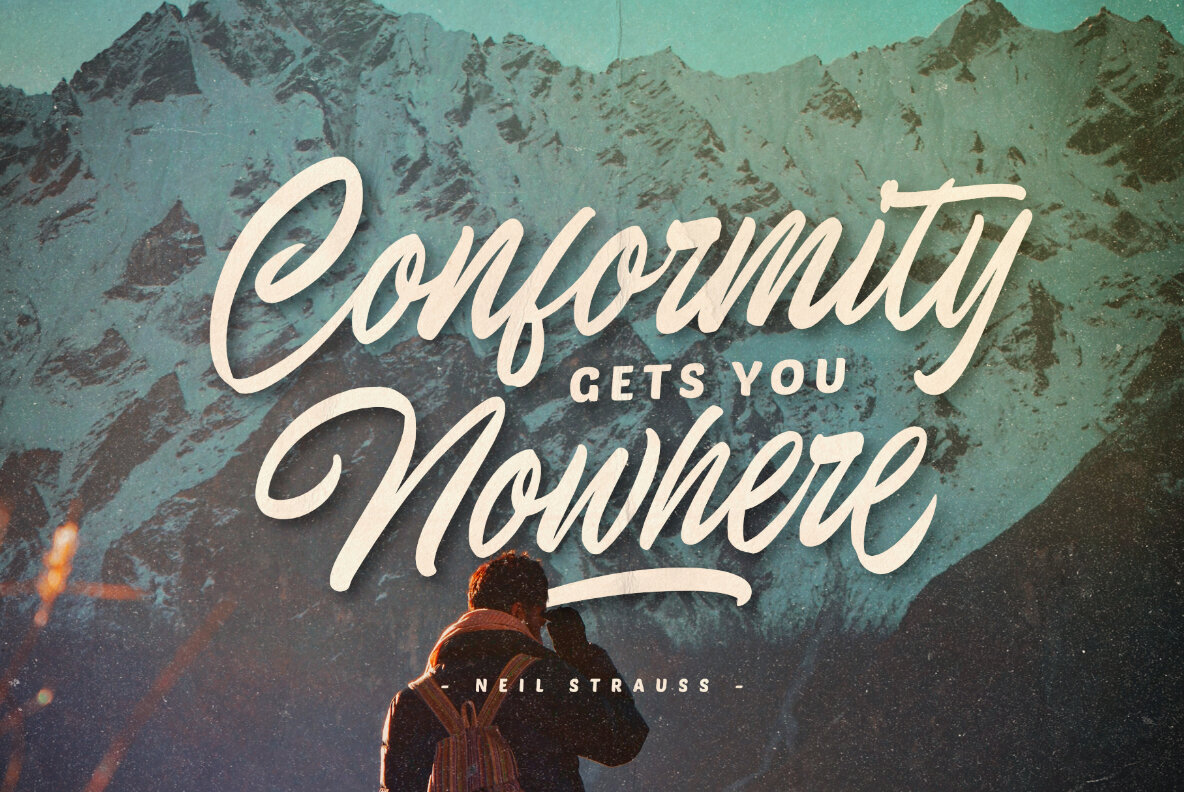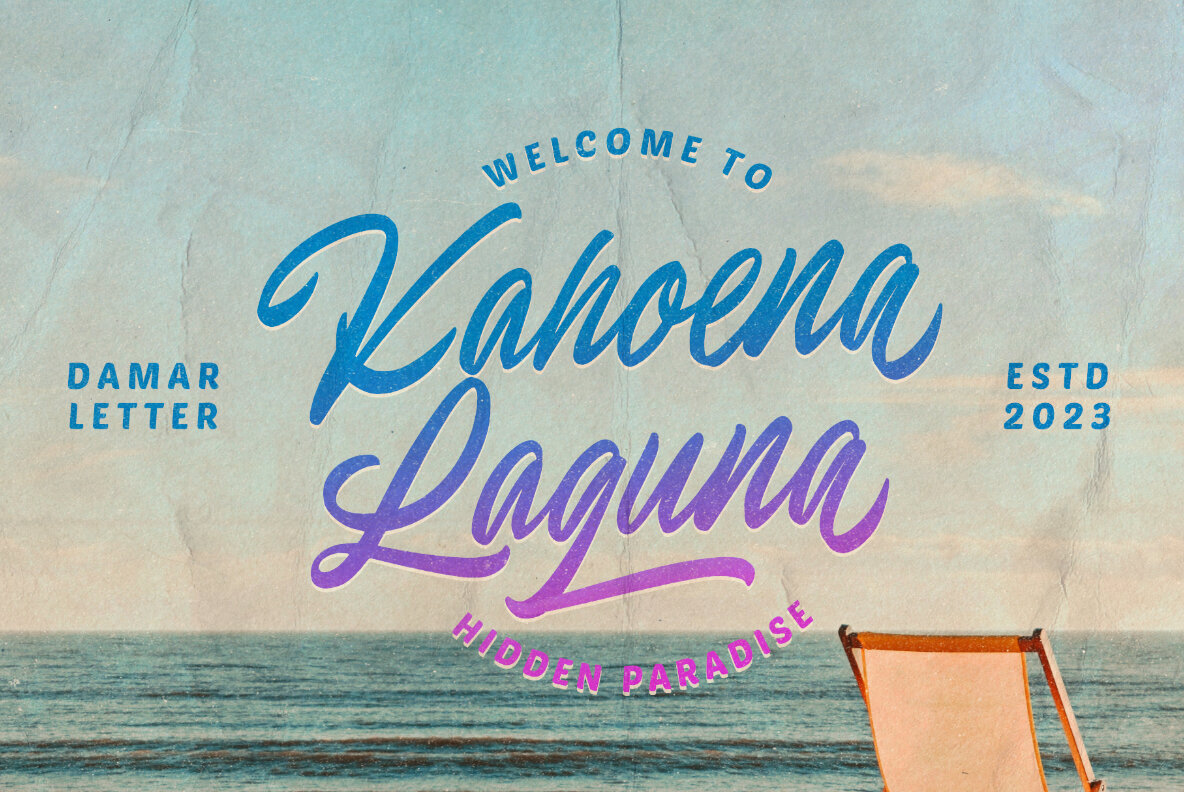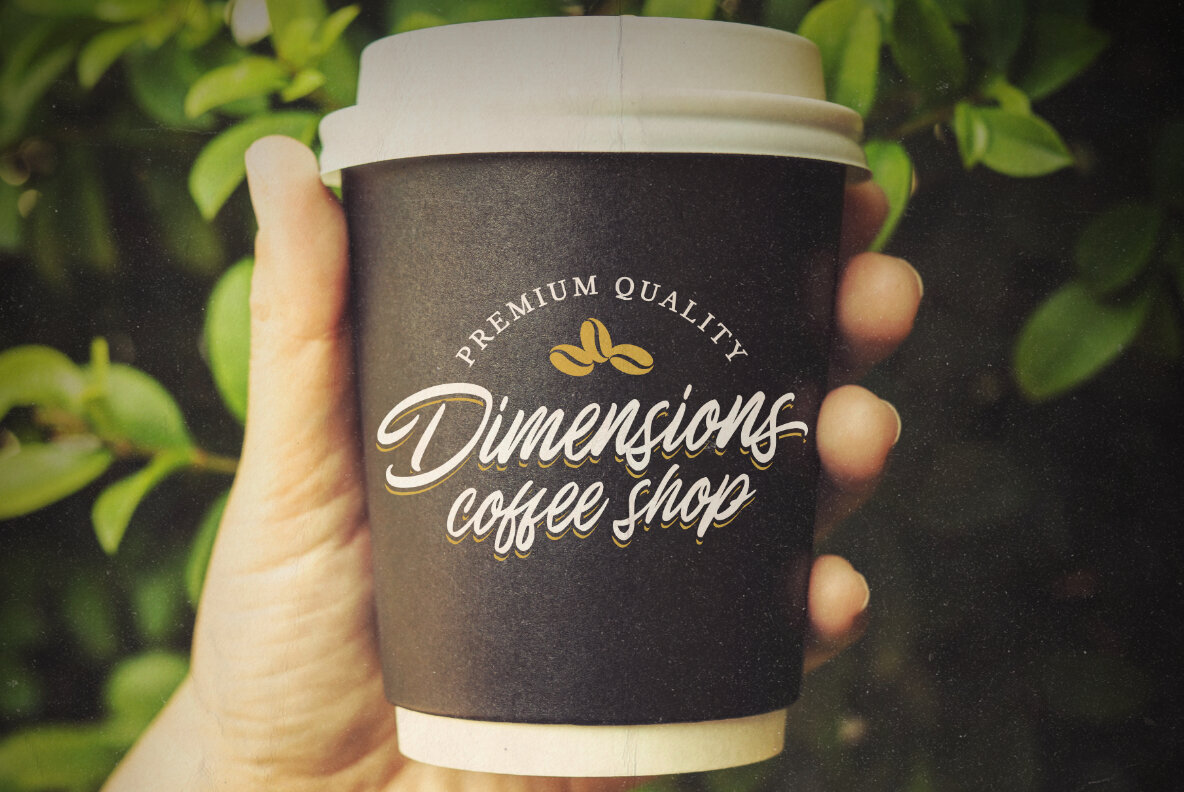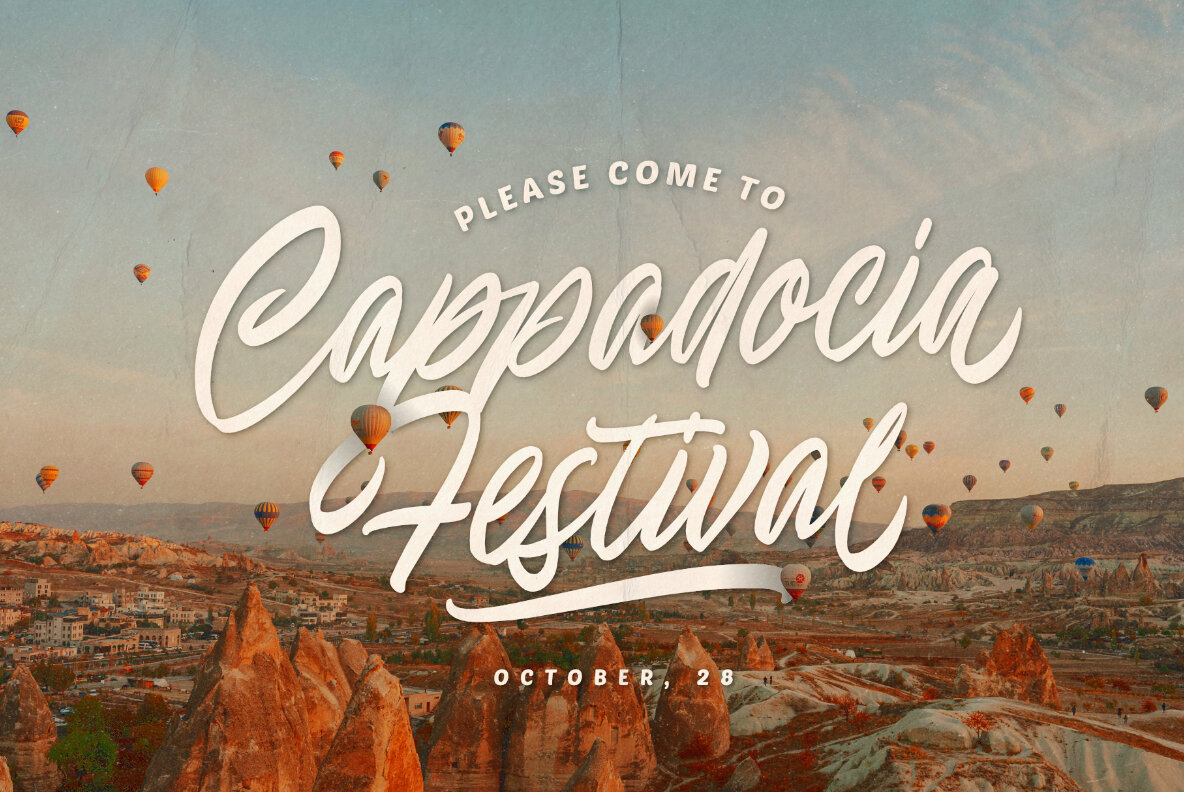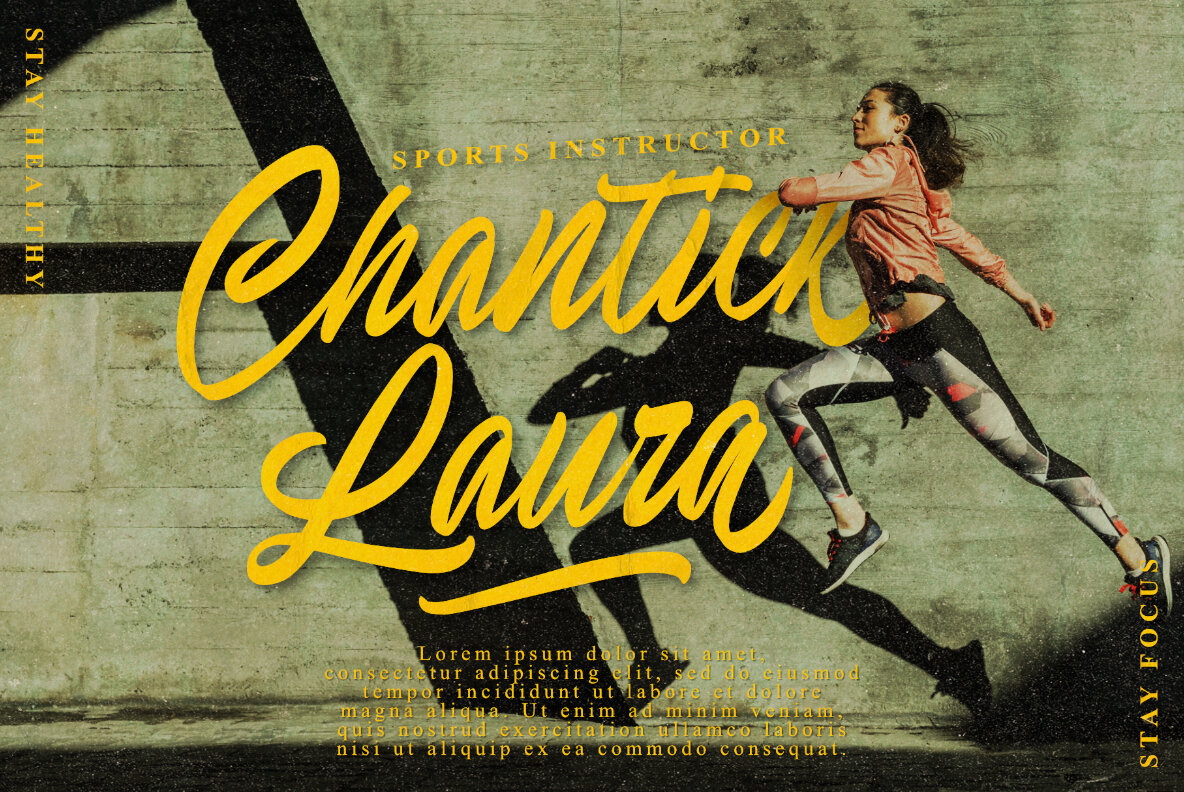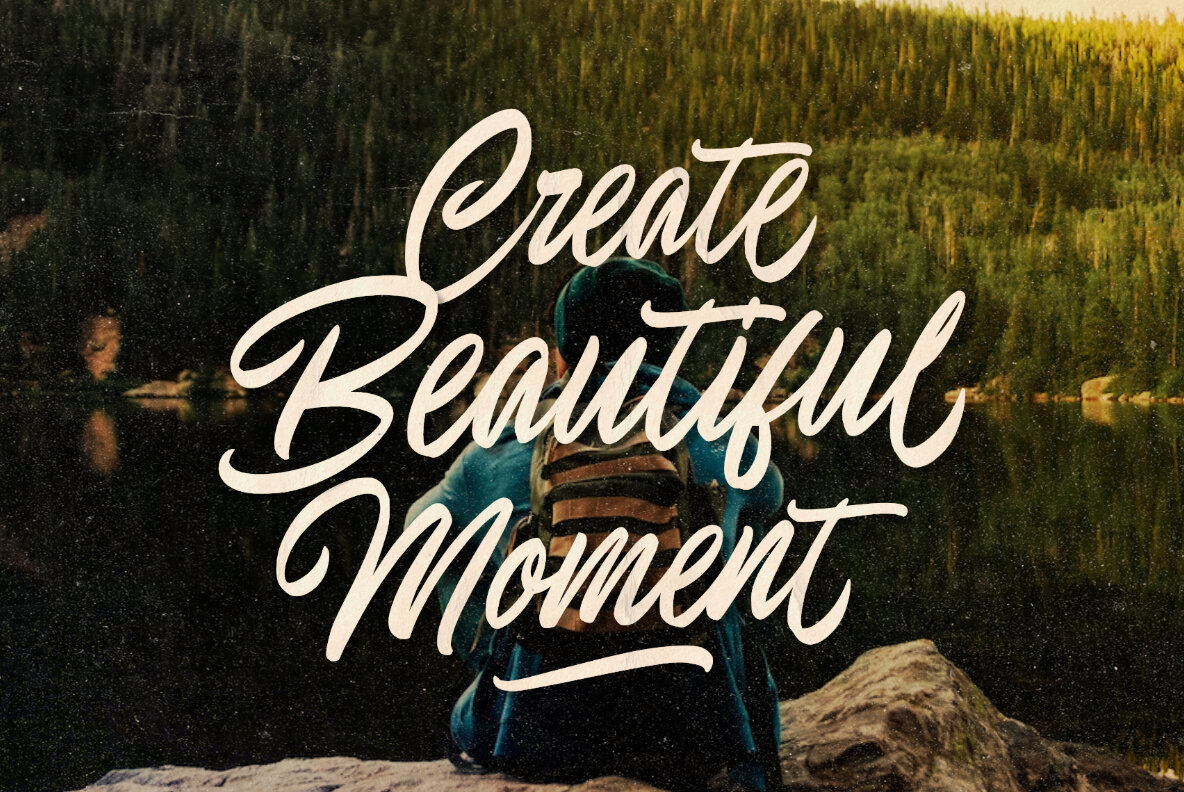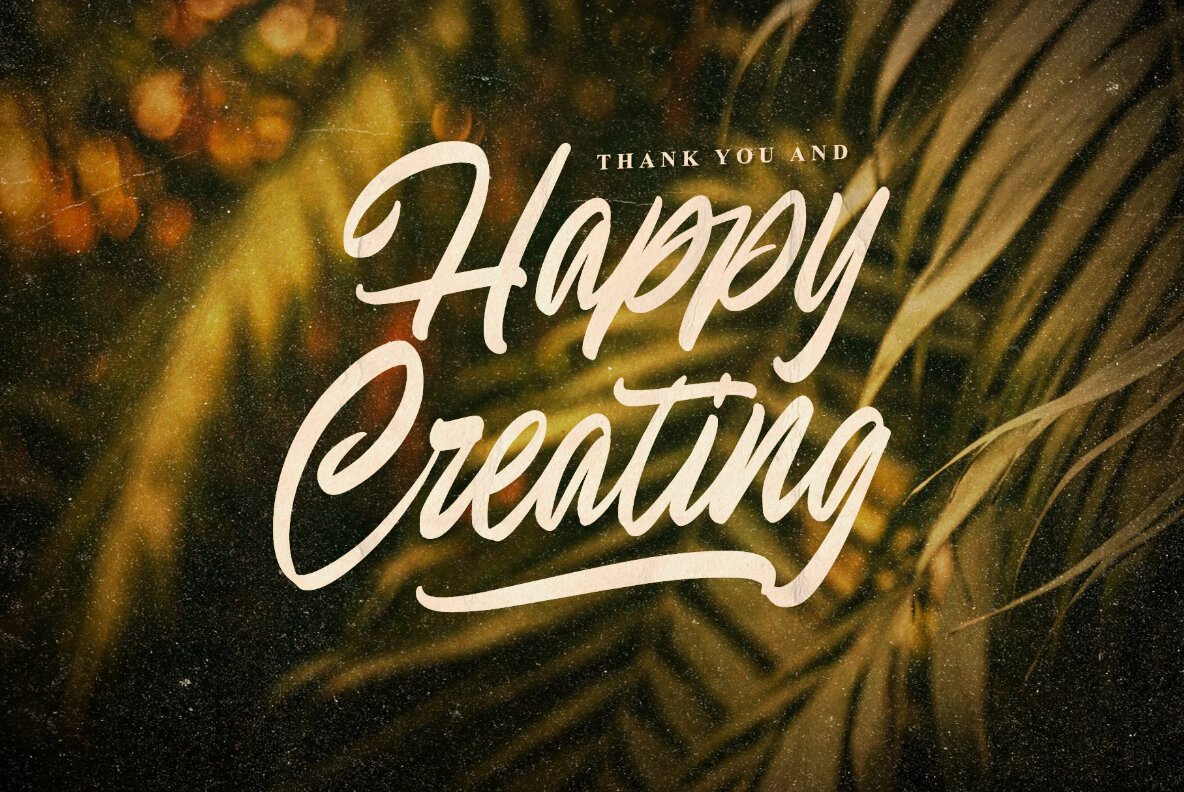
Endeline Script Font
Endeline Script
Endeline Script is a sophisticated, refined script font designed to add elegance and style to any project. With its fashionable ligatures, it serves as a perfect match for a wide range of applications. Endeline Script is ideal for a wide variety of uses, making it suitable for: Endeline Script is PUA encoded, allowing easy access to all of its stunning glyphs and ligatures.Endeline Script: Chic and Refined Handwritten Font
Stylish Characteristics
Versatile Applications
Accessibility